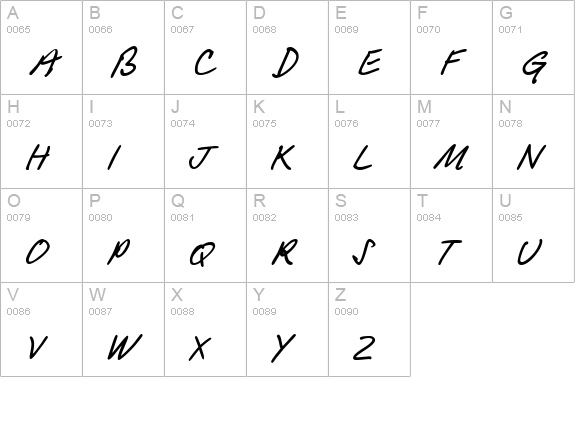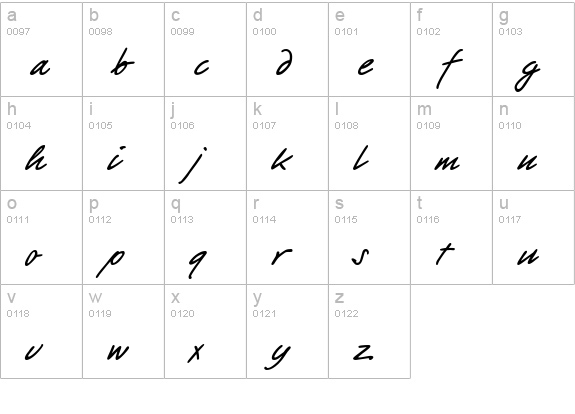
PT Script Barguzin Font Details
PT Script Barguzin is a beautifully crafted handwritten font that exudes elegance and charm. With its unique and flowing script style, this font is perfect for adding a personal touch to your projects. Whether you are designing invitations, greeting cards, or branding materials, PT Script Barguzin will bring a touch of sophistication to your designs. What makes PT Script Barguzin even more appealing is that it is available for free download at FontsMarket.com. This means that you can easily access this stunning font and use it in your projects without any cost. Don't miss out on the opportunity to enhance your designs with the graceful beauty of PT Script Barguzin. Download it today and elevate your designs to new heights.